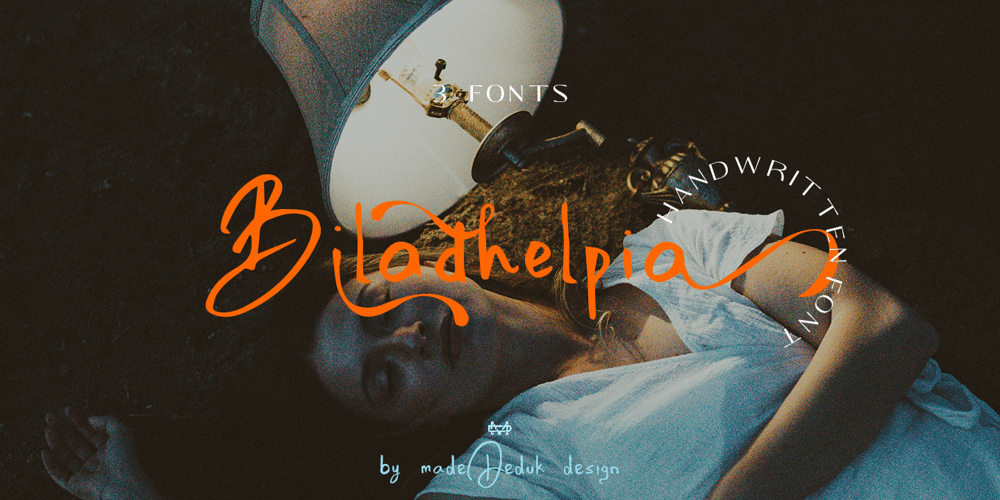
Biladhelpia
Biladhelpia font
Biladhelpia Font Family was designed by madededuk and published by madeDeduk. Biladhelpia contains 3 styles and family package options. Biladhelpia is a bundle handwritten font with three version and come with a lot alternative and ligature and will be perfect for book, title branding, product packaging, invitation, quotes, label, poster, logo etc.